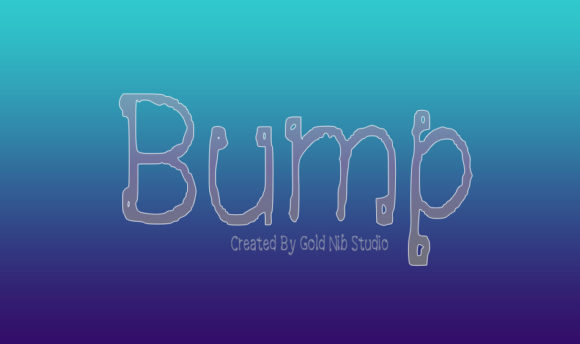
The Bump Font: A Simple yet Powerful Design Companion
I’ll never forget the moment I stumbled upon the Bump font while working on a project for a client’s wedding invitation. I had been searching for the perfect handwritten font for hours, but nothing seemed quite right. The designs were either too ornate, too bland, or just didn’t feel like a good fit. That’s when I saw Bump – a simple, clean, and elegant handwritten font that instantly caught my eye. In this article, I’ll share my experience with Bump, its features, and how to make the most of it in your designs.
An Honest Review of Bump Font
What I Love About Bump Font
- ✨ Simple and clean design that’s easy on the eyes
- ✅ Highly adaptable and versatile for various design projects
- 💕 Fun and playful feel that’s perfect for creative designs
- 📚 Extensive character set for languages and special characters
While Bump font is an excellent choice for many designs, there are a few things to keep in mind:
- 🤔 Limited availability of stylistic alternates, which might be a drawback for some designers
- ⚠️ Not ideal for body text due to its handwritten nature; better suited for headings and titles
The Story Behind Bump Font
Bump font was designed with the intention of creating a simple, yet powerful handwritten font that could be used for a wide range of design projects. The designer aimed to craft a font that was both fun and elegant, making it perfect for creative designs that require adaptability and a personal touch.
Q: What type of designs is Bump font best suited for?
A: Bump font is ideal for designs that require a fun, playful, and elegant touch, such as wedding invitations, social media graphics, and creative branding.
Q: Is Bump font suitable for body text?
A: No, Bump font is not recommended for body text due to its handwritten nature. It’s better suited for headings, titles, and creative designs.